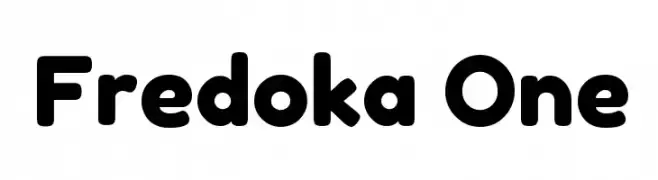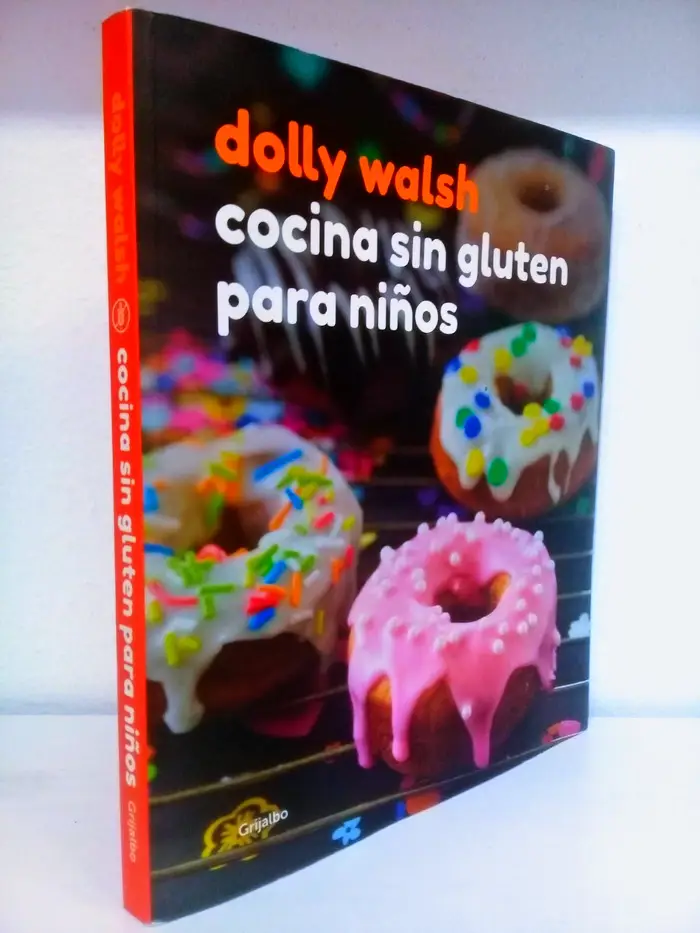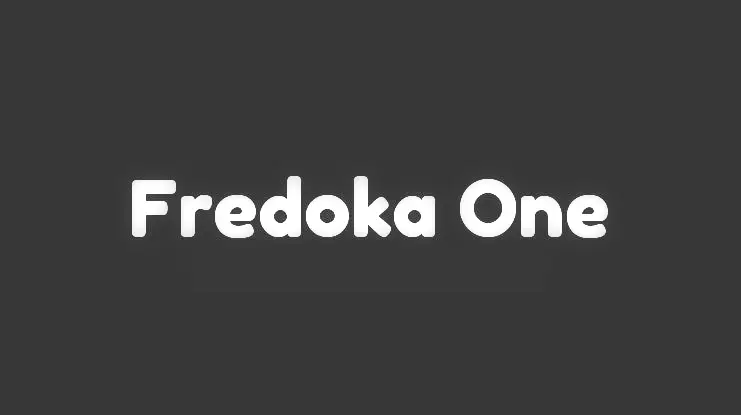
Fredoka One Font is a bold, rounded sans-serif display font designed by Milena B. Brandão in 2011, known for its playful, cheerful personality and soft, fully-rounded terminals. This ultra-heavy, monoline typeface exudes approachability and fun. Best used at larger sizes for maximum impact, now part of the expanded Fredoka font family.
- Visual Style: Ultra-bold stroke weight with smooth, circular curves and a monoline appearance (consistent stroke thickness)
- Personality: Conveys cheerfulness, approachability, and fun, similar to fonts used in children’s books, games, and food branding
- Original Version: Only one weight (Regular) containing 235 glyphs supporting 41 languages
- Expanded Family: In 2022, it evolved into a full variable font family called simply Fredoka, now offering 5 weights (Light to Bold) across 3 widths (Condensed, Regular, Extended), totaling 15 styles
Fredoka One is specifically designed for display purposes and works best at larger sizes:
- Headlines and large text
- Logos and branding for playful or youth-oriented products
- Social media graphics and merchandise
- Games (used in Roblox) and children’s products
- Food branding (Universal Yums, Kong Dog)
Important: It is not suitable for body text or long paragraphs, as its boldness becomes bulky and hard to read at small sizes.
- Scripts: Original Latin script; Hebrew support added later by Ben Nathan
Fredoka One is a bold, rounded display font that brings instant cheerfulness to any design. Its playful personality shines in headlines, logos, and children’s products, but should be used sparingly as its heavy weight can overwhelm body text. Best at large sizes for maximum impact, it’s completely free for commercial use, making it an accessible choice for adding fun and approachability to your creative projects.